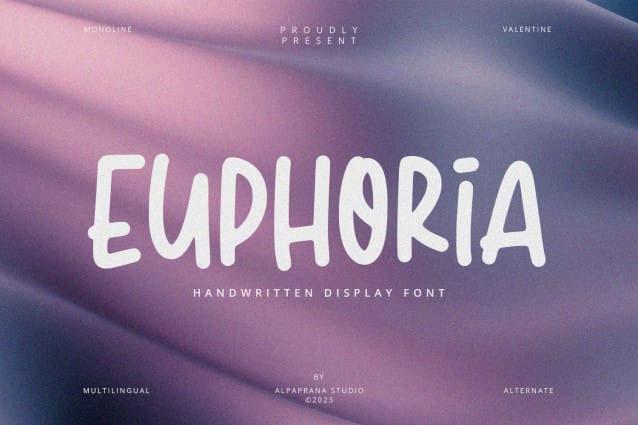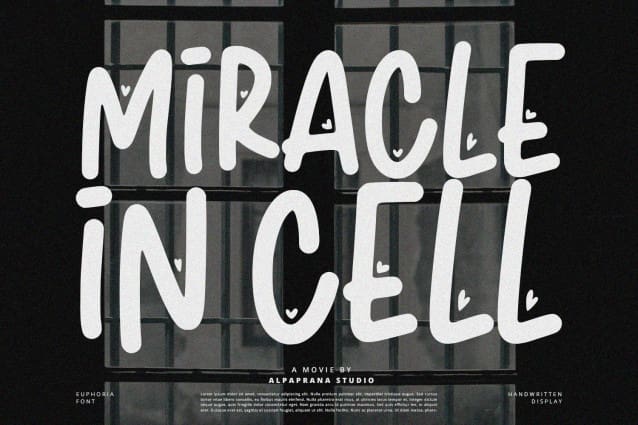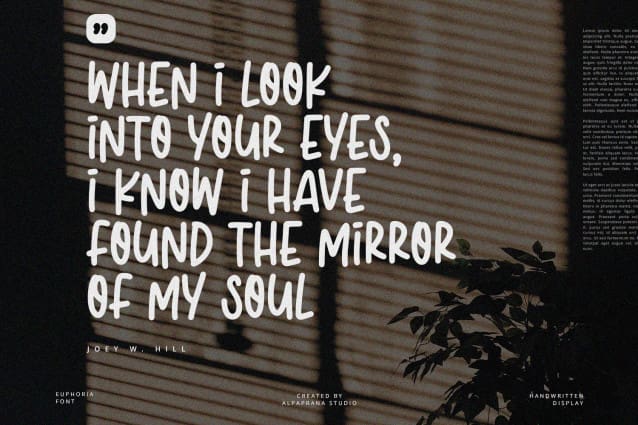
Euphoria Display Font
Euphoria Display Font is a handwritten display font with romantic and modern feels. It will be perfectly used for Branding, Logo Design, Lettering, Logotype, Clothing, Poster, magazine, packaging, posters, shopping bags, t-shirts, book covers, photography, special events and other design project.